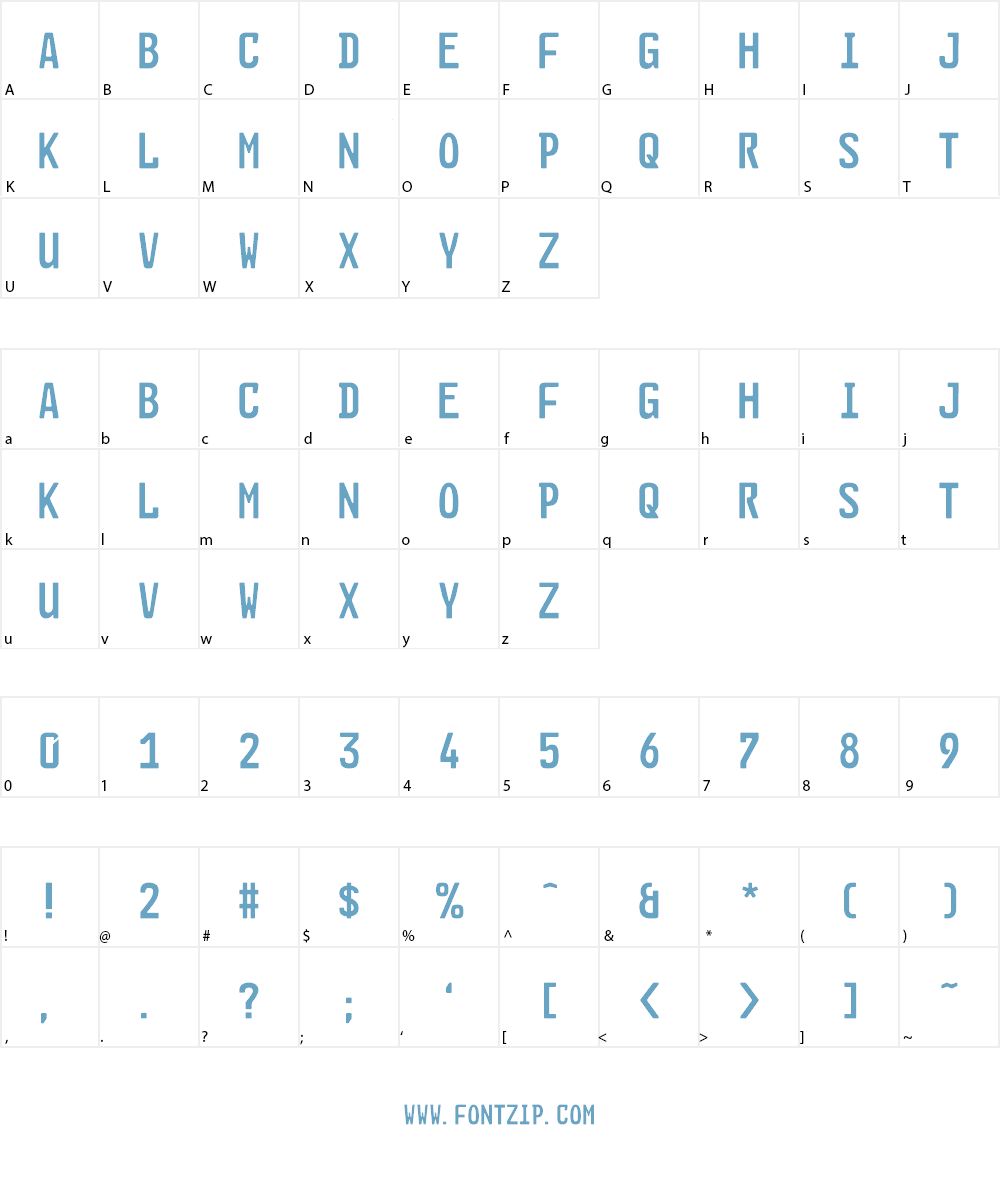
German license plate font, originally designed by KarlGeorg Hoefer. The set includes both regular (Mtl for Mittelschrift) and narrow (Eng for Engschrift) in TrueType and OpenType. And, you can find numberplate-like forms in unicode area E000 to E02C.